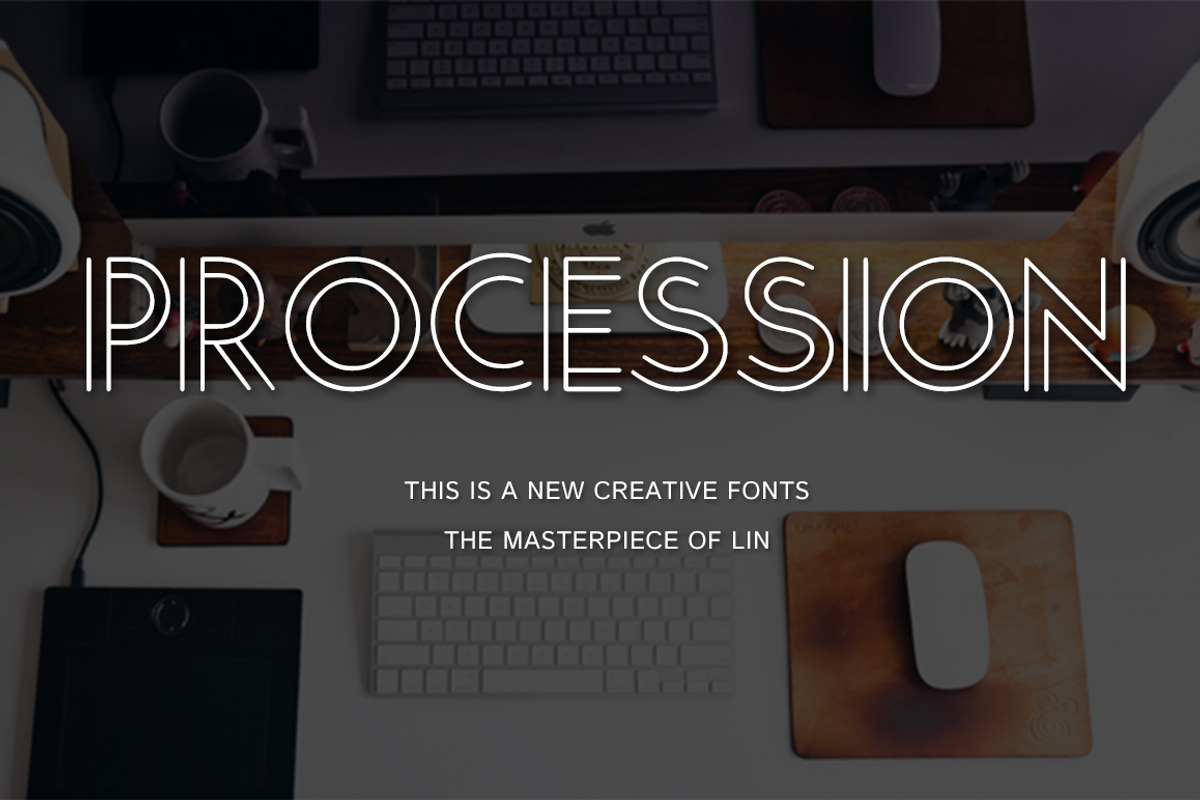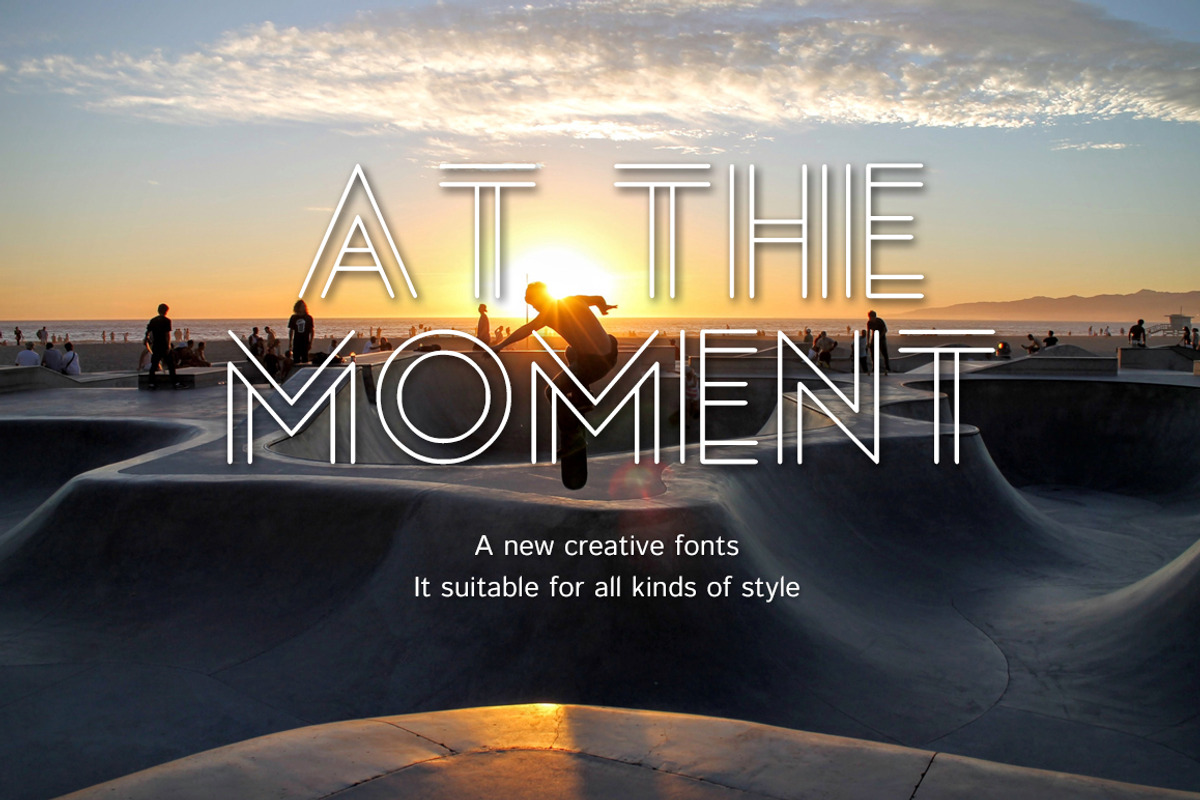
Procession-Creative font
Procession-Creative font by LYB-Design is a font selected for branding, posters, packaging, typography.
Why Procession-Creative font is worth a look
Procession-Creative font by LYB-Design fits naturally into Branding, posters, packaging, typography.